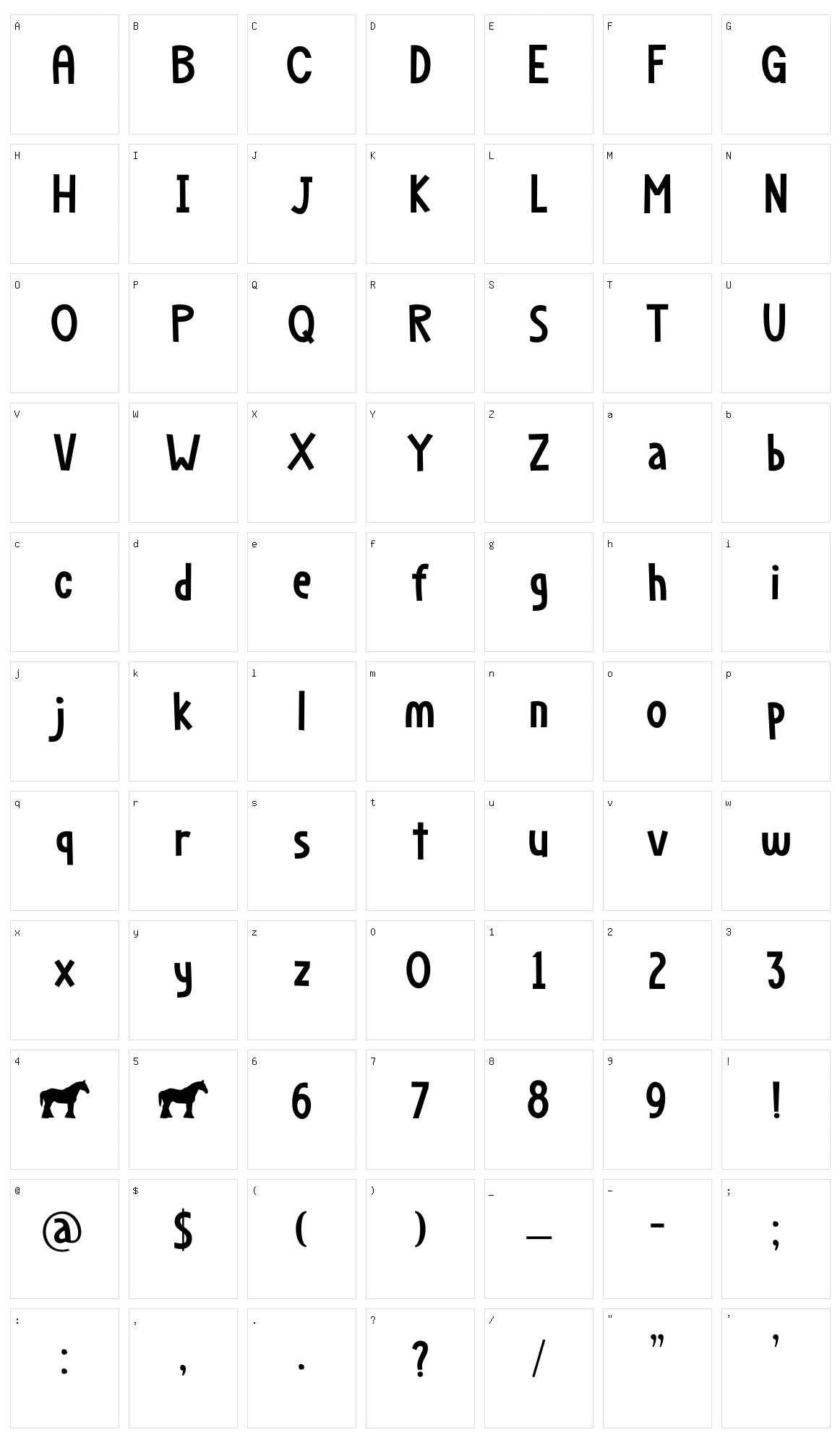
The free font Dapplegrim is carefully designed by Hanoded, showcasing a thoughtful balance of creativity and usability and falls under the Cartoon font style. When you download the ZIP file, it contains only 107.31 KB of font files, making it lightweight and quick to download. Please review the license details below to understand permitted usage and distribution rights. If license information is not available, we recommend using this font for personal projects only or contacting the author directly for commercial usage permissions.